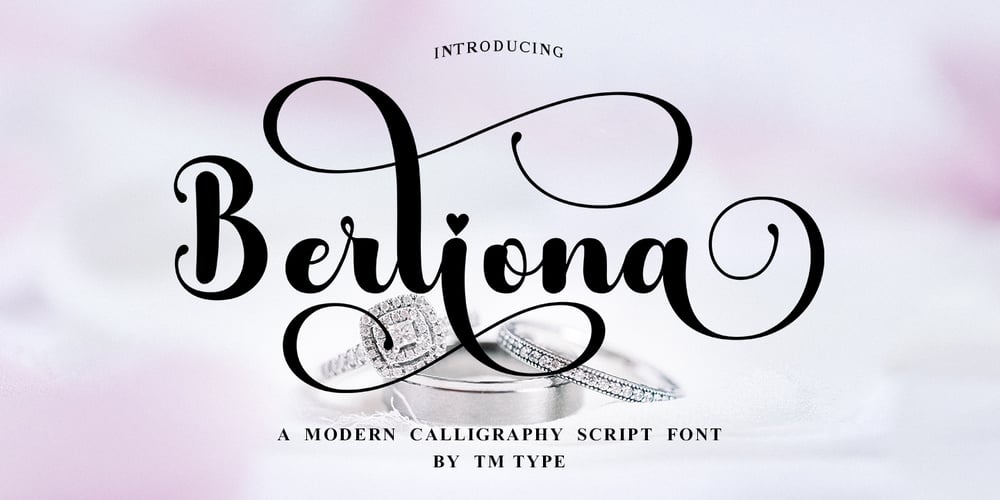
Berliona Font Family was designed by Teuku Bustami and published by TM Type. Berliona contains 1 styles and family package options. IntroduceBerliona is a beautiful handwritten font with a touch of love. The Berliona is perfect for branding projects, home appliance design, product packaging, use in business cards, invitation cards, etc. Simply as a stylish text overlay onto a background image or anything else that needs a touch of elegance.To enable the OpenType Stylistic alternative, you need a program that supports OpenType features such as Adobe Illustrator CS, Adobe Indesign & CorelDraw X6-X7, Microsoft Word 2010 or later.There are additional ways to swash, using Character Map (Windows), Nexus Font (Windows), Font Book (Mac) or a software program such as PopChar (for Windows and Mac).How to access all alternative characters, using Windows Character Map with Photoshop: https://www.youtube.com/watch?v=Go9vacoYmBwHow to access all the alternate characters using Adobe Illustrator:http://youtu.be/iptSFA7feQ0How to use the font style set in Microsoft Word 2010 or later:https://youtu.be/x1A_ilsBsGsThanks for checking! I really hope you enjoy it.RegardsTM Type.